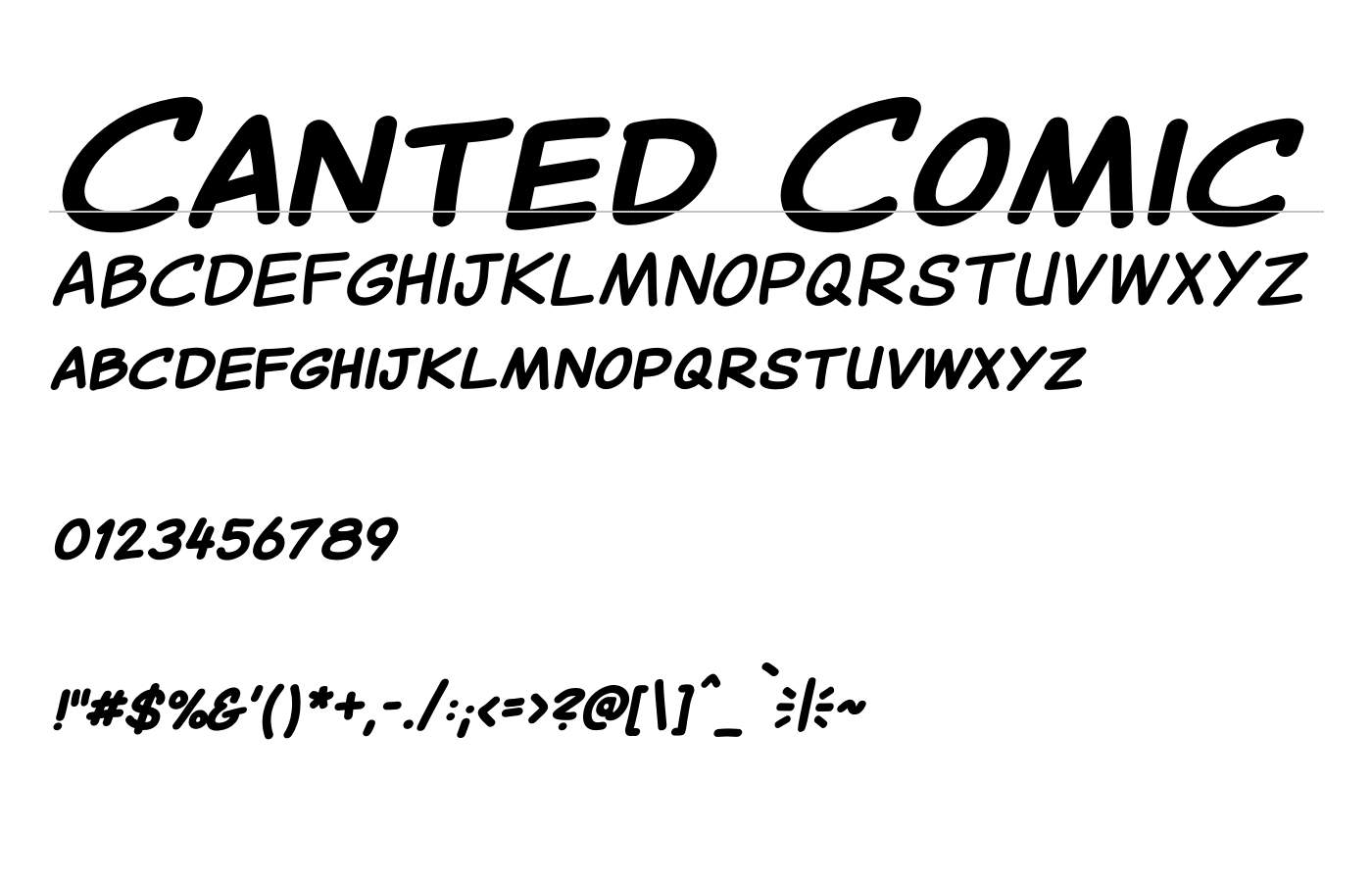
Canted Comic Font is a playful and energetic sans serif typeface with a casual, handwritten feel characterized by its slightly slanted, rounded strokes and lively letterforms. Its medium weight, generous spacing, and smooth curves make it ideal for projects that want to convey friendliness and approachability, such as comics, children’s books, and informal branding. This font works best in headlines, logos, and packaging where a fun, dynamic, and casual tone is desired.
Canted Comic Font
About Canted Comic Font
| Font family | Canted Comic Font |
| Designer | Nils Cordes |